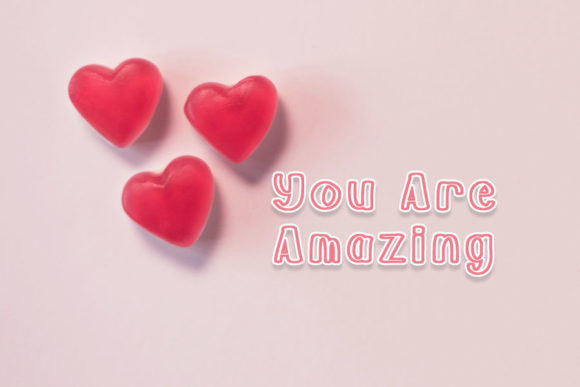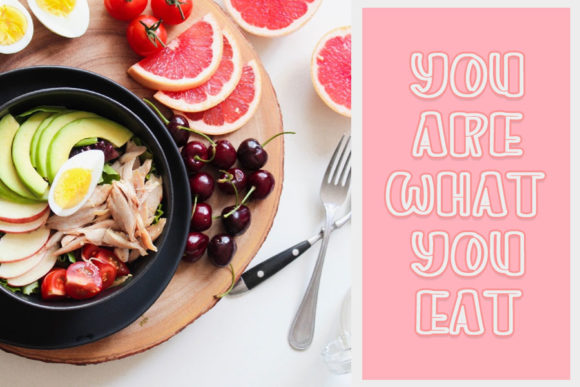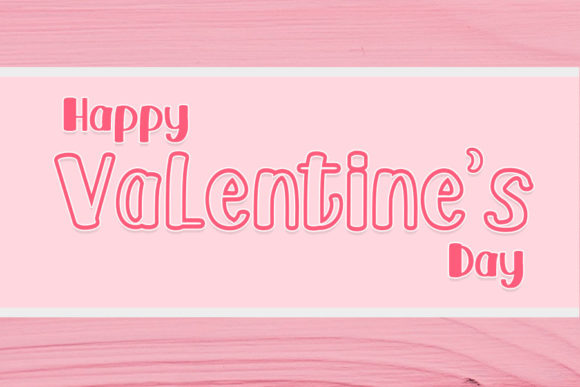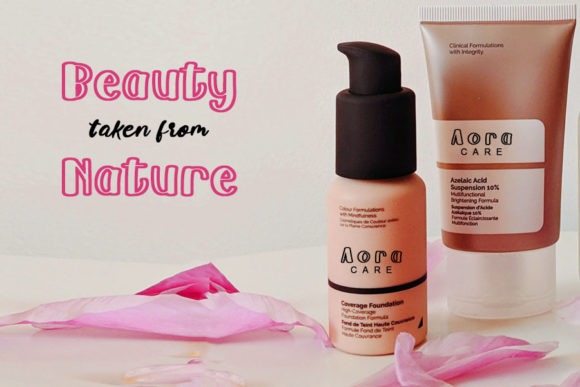
About My Valentine Font
My Valentine is a cute and friendly handwritten font. Playful and a little bit quirky, this font is the perfect fit for all of your logos, branding, posters, and crafty DIY projects.